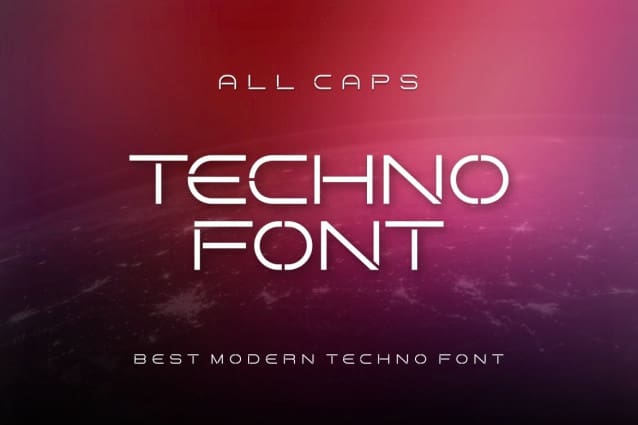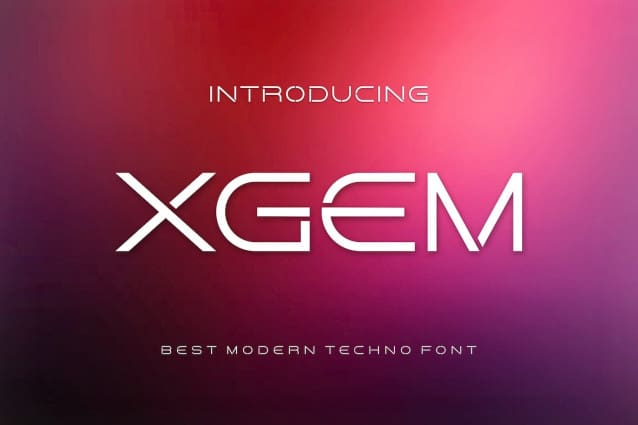
Xgem Techno Font
Xgem Techno Font a techno font that embodies modernity and innovation. With its sleek lines and futuristic design, Xgem exudes energy and sophistication. Ideal for digital interfaces, graphic design, and branding, it adds a dynamic and edgy flair to any project.